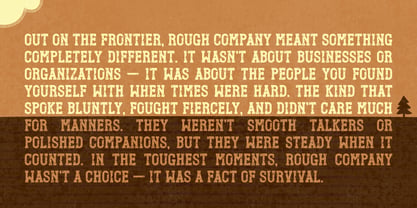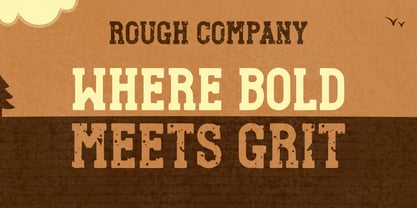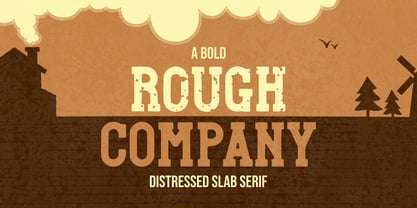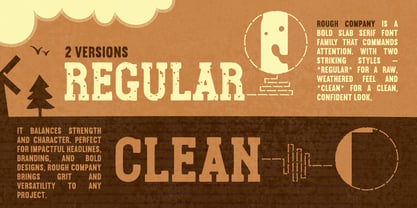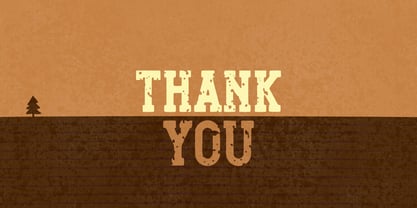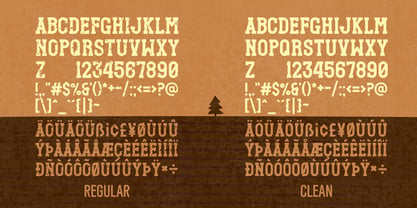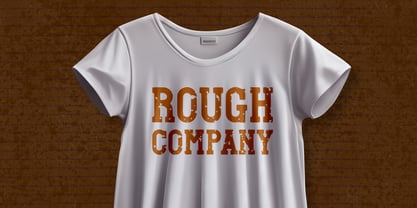
Rough Company
by RADesigns21
The Rough Company Font Family was designed by and published by RADesigns21. Rough Company contains 2 styles and family package options. More about this family
Rough Company is a bold slab serif font family that commands attention. With two striking styles — Regular for a raw, weathered feel and Clean for a clean, confident look, it balances strength and character. Perfect for impactful headlines, branding, and bold designs, Rough Company brings grit and versatility to any project.